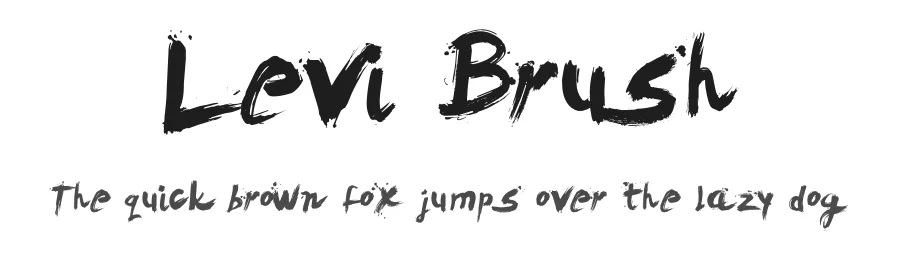
About Levi ReBrushed Font
The Levi Brush remastered, meaning a few kernings, size adjustments and new characters in this font. The first version was a raw design to let people be creative, but it seems that some need this version, since design lately is done in a hurry or this is used for longer texts. I can totally relate to this.
Levi ReBrushed Font is a script font that shines as a display or heading face. Pair it with a clean sans-serif or serif font for body text β the contrast creates a clear hierarchy while the two styles stay balanced and easy to read.
Levi ReBrushed Font